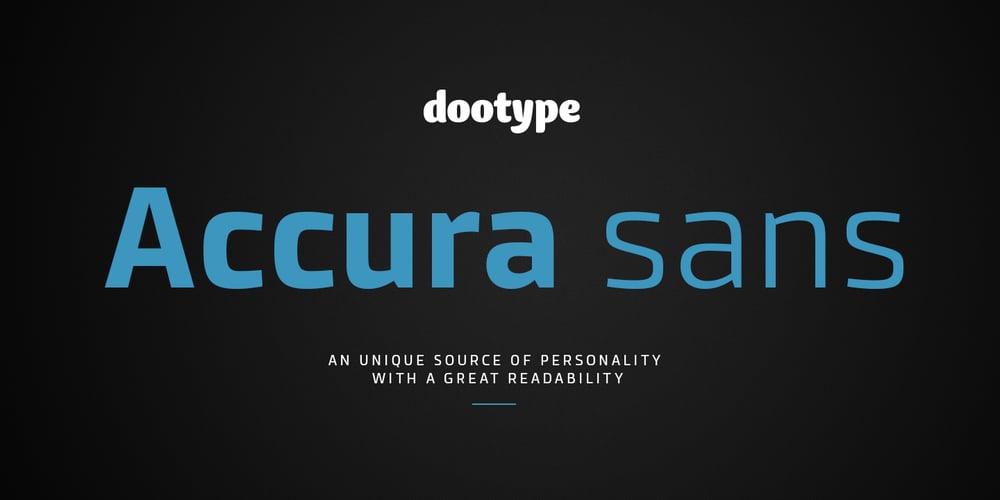
Accura Font Family was designed by Eduilson Wessler Coan, Thiago Bellotti and published by dooType. Accura contains 14 styles and family package options. Accura is a sans serif font with a technological aspect and simple letterforms. Its closed angles and smooth curves make it an unique source of personality, and still offers great readability. Perfectly fits to headline sizes and text blocks, Accura has seven precise-calculated weights and their matching italics, from thin to black. Offers support for more than 50 languages and count on opentype features.